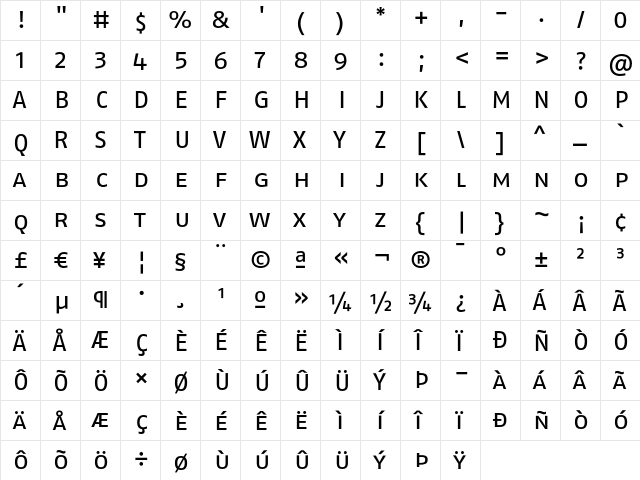
FagoExLf Caps Font Preview
FagoExLf Caps
Design Context for FagoExLf Typeface
FagoExLf offers clean, dependable letterforms without strong stylistic allegiance, making it a practical choice for designers who need flexibility.